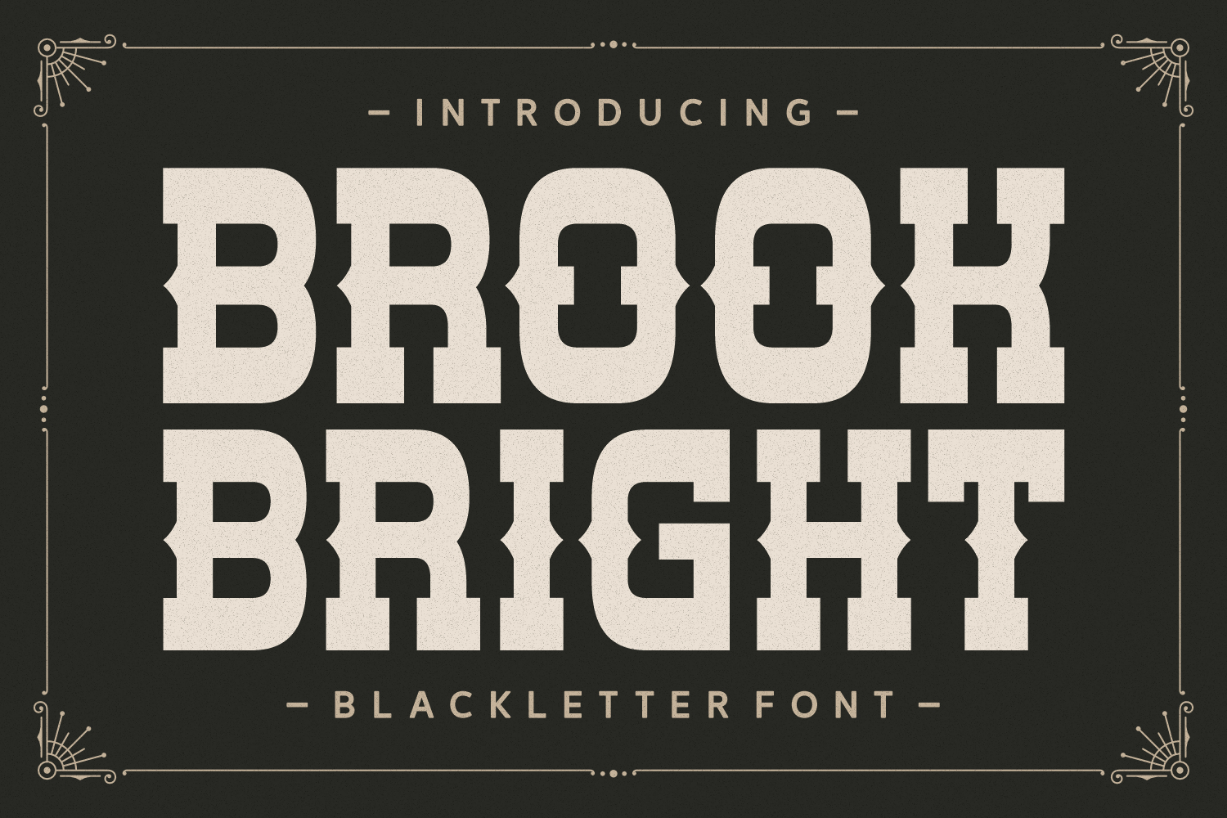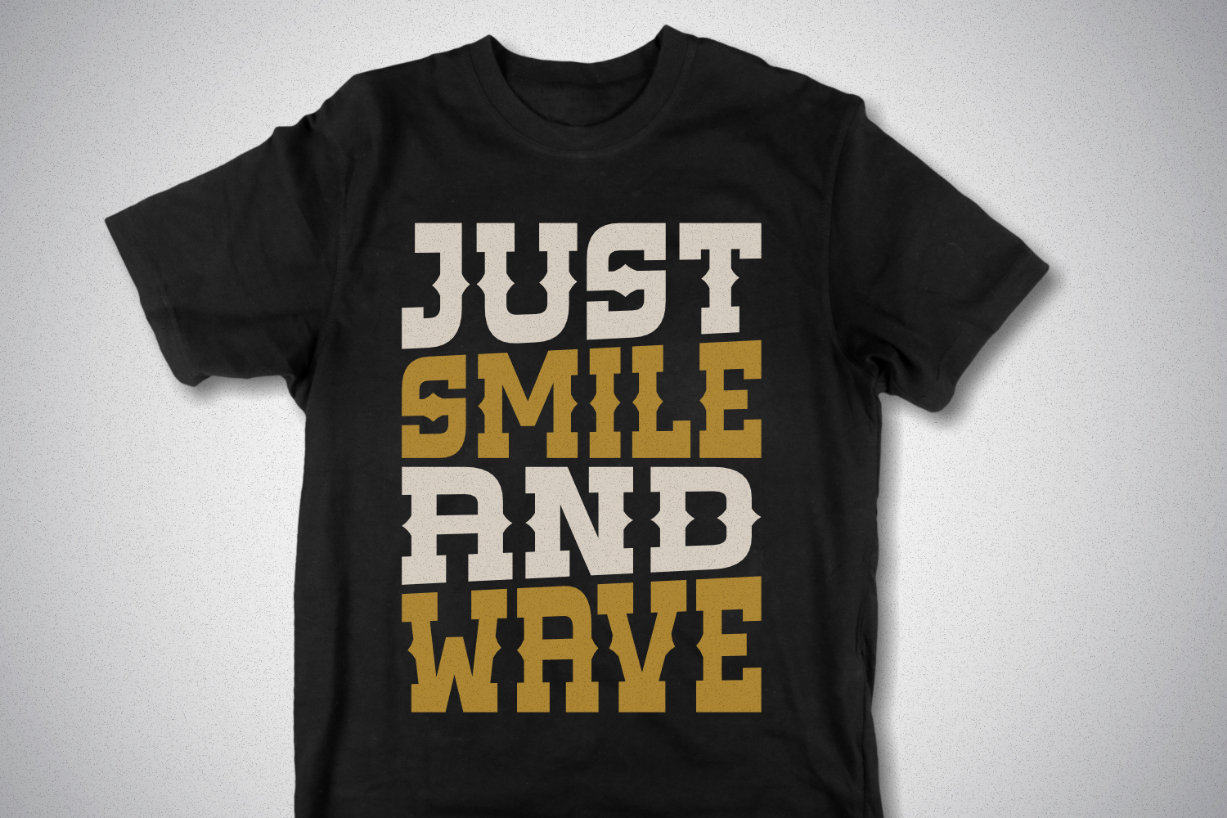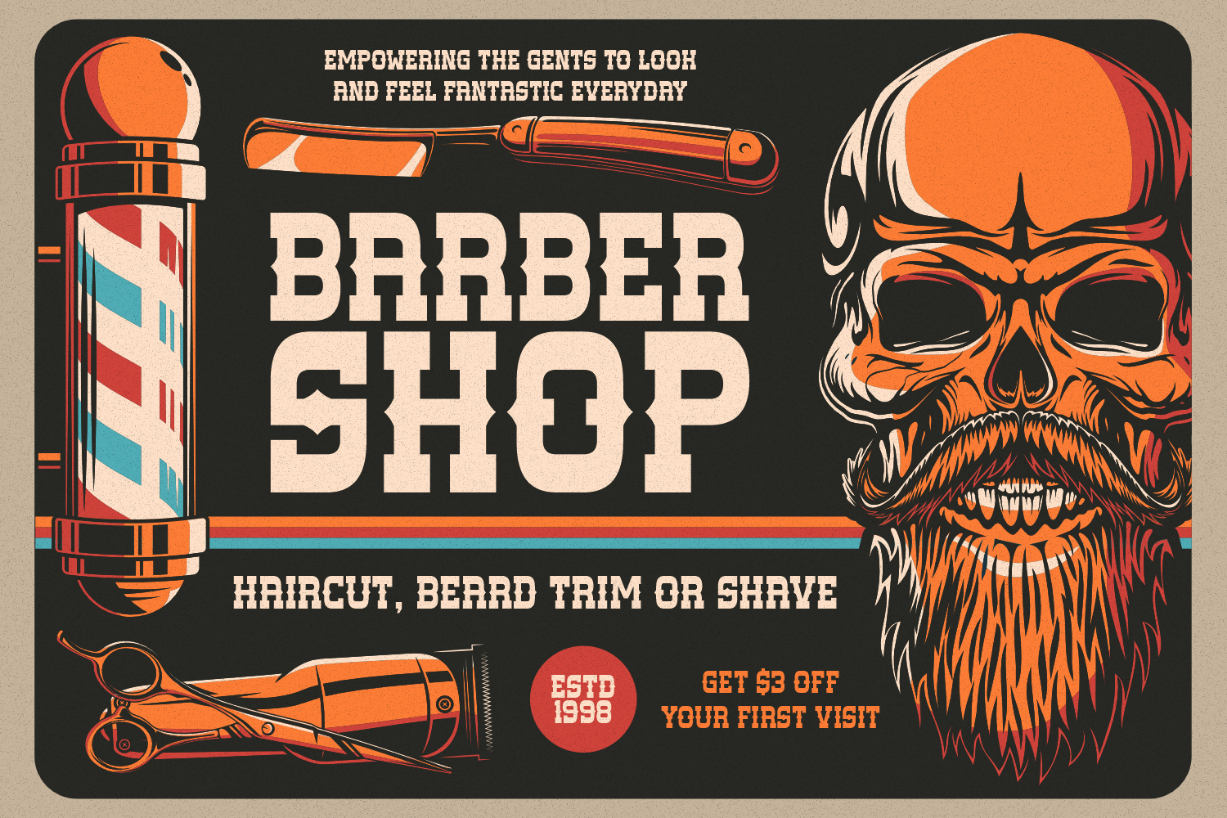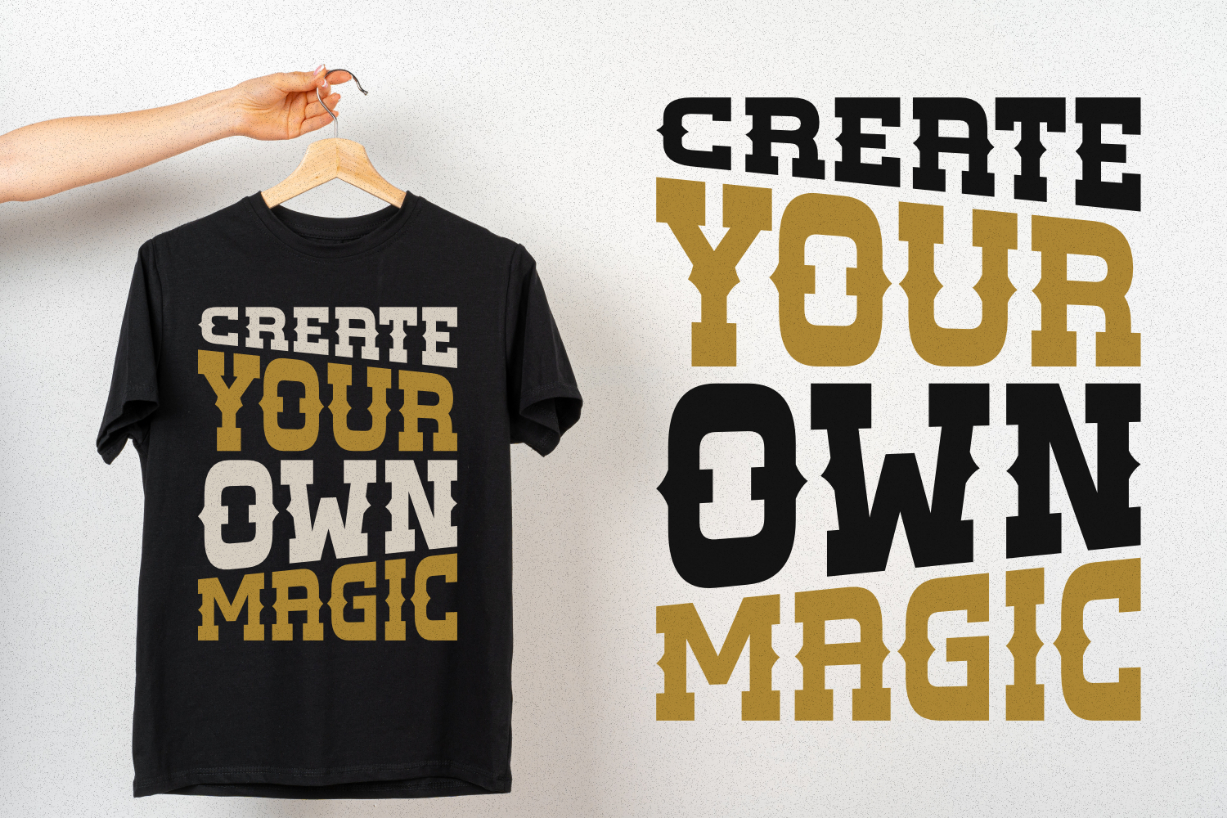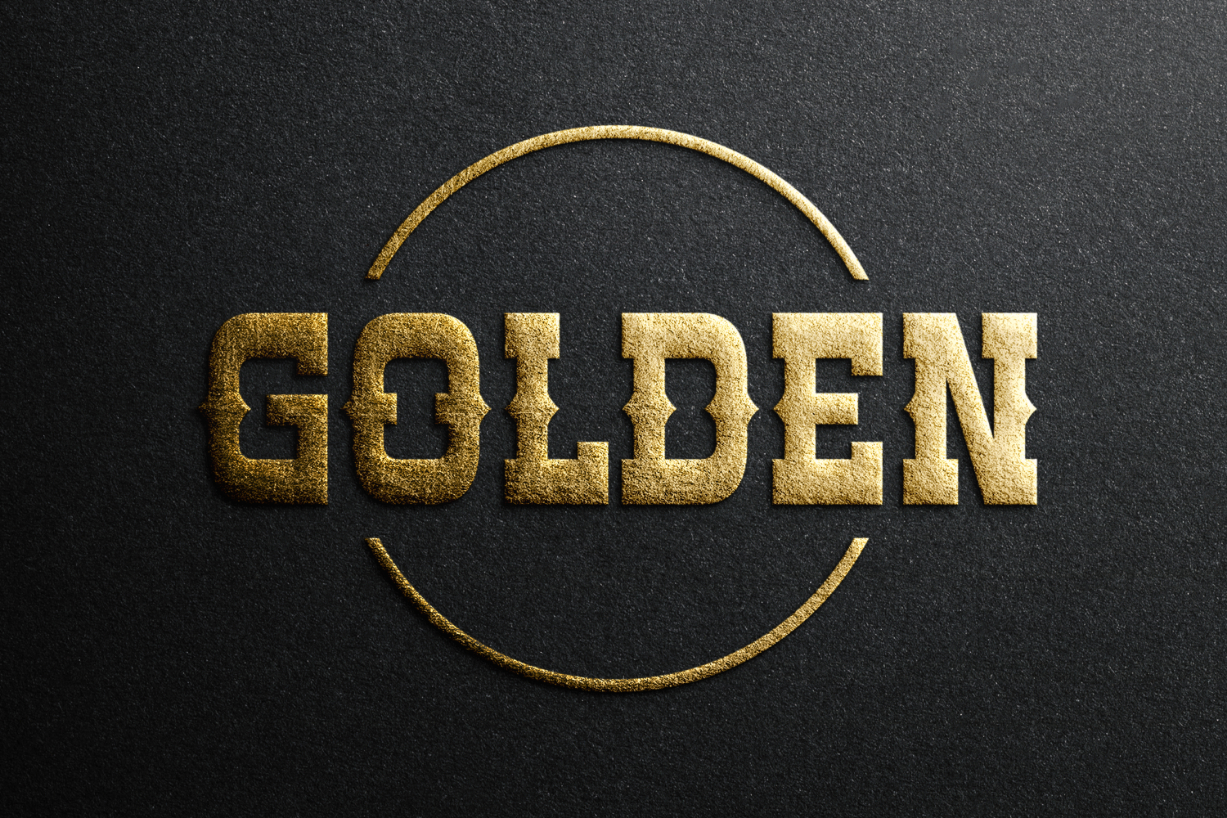
Brook Bright Font
About Brook Bright Font
Brook Bright is a bold and eye-catching blackletter font. Create outstanding typography designs with this powerful font that features thick letters and serifs. Add it confidently to your projects, and you will love the results!